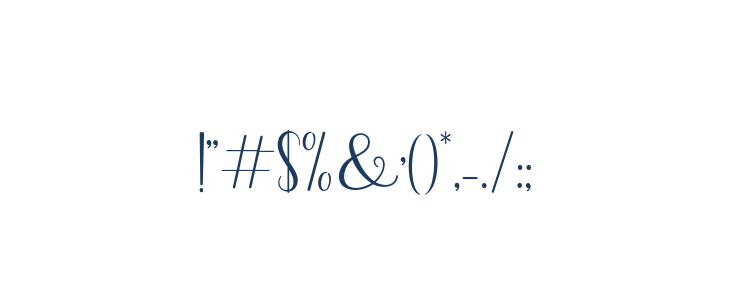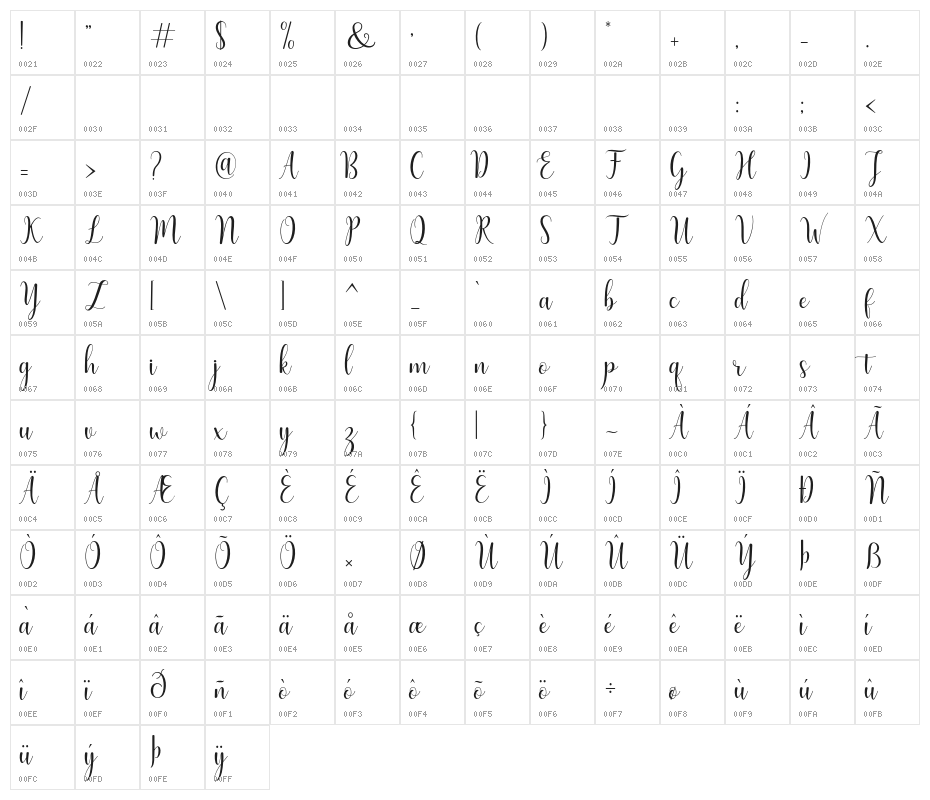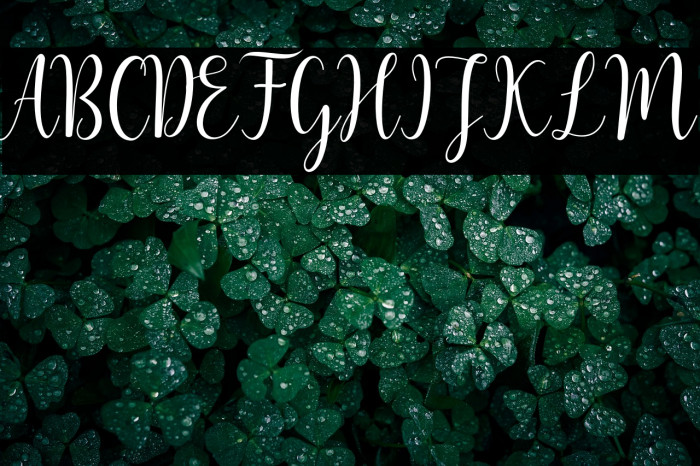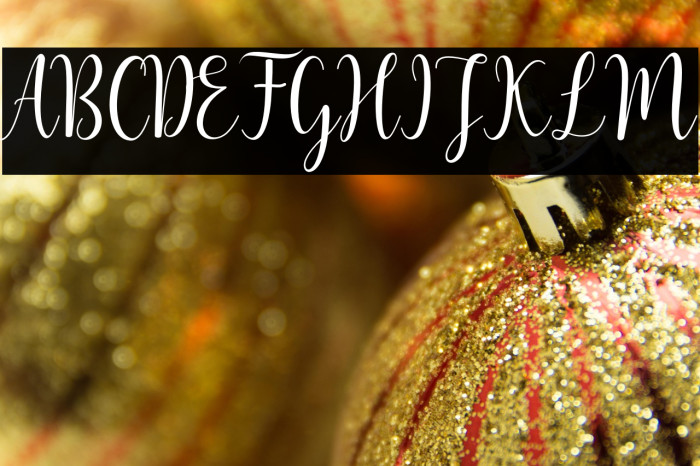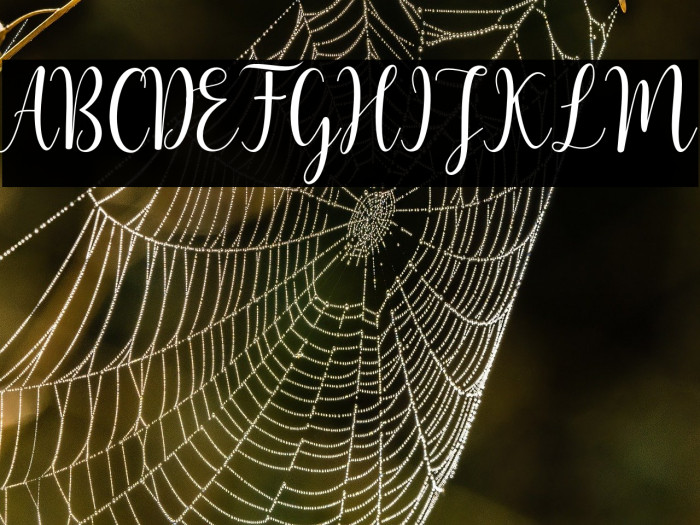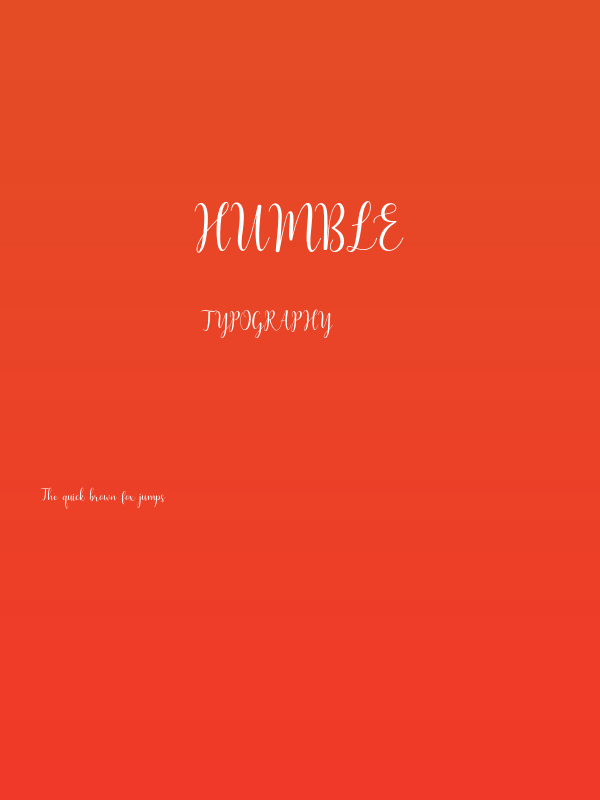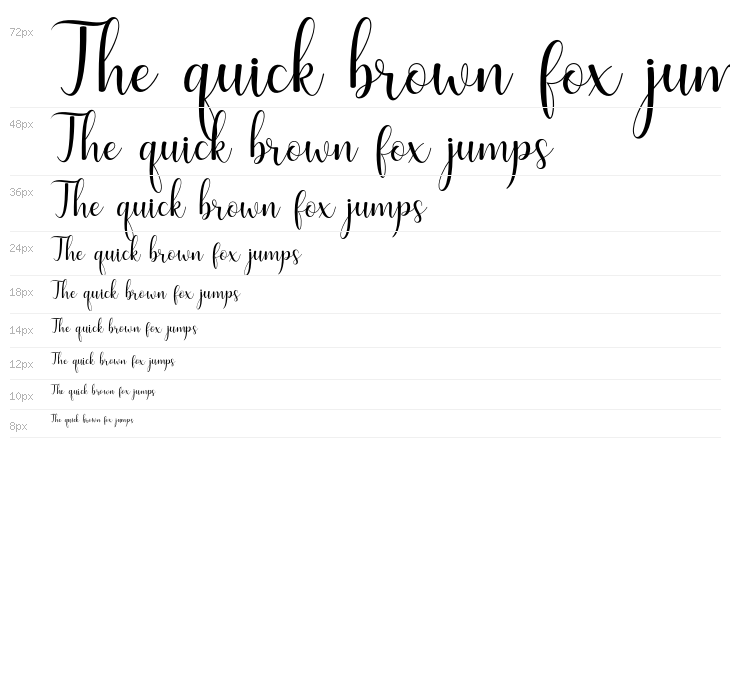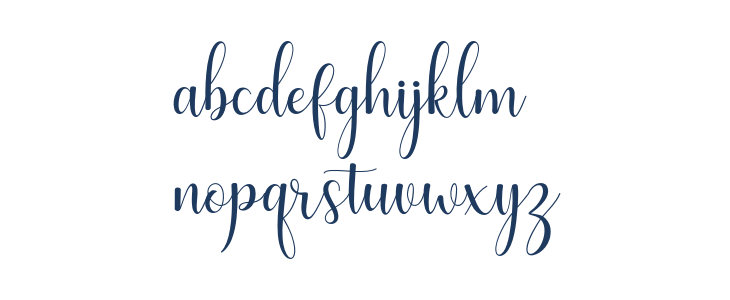
Humble Font
Humble Description
This font exudes elegance and fluidity, characterized by its cursive, handwritten style. The letters are connected with graceful, sweeping strokes that give it a sophisticated and artistic appearance. The uppercase letters are tall and slender, while the lowercase letters maintain a consistent flow, enhancing readability. The font features a high contrast between thick and thin strokes, adding to its dramatic flair. Special characters are designed with the same attention to detail, ensuring a cohesive look throughout. This font is perfect for projects that require a touch of elegance and creativity.
Overall StyleElegant, Artistic
Use CaseHeadlines, Invitations, Branding
Proposed ProjectsIdeal for wedding invitations, greeting cards, branding, and elegant packaging.